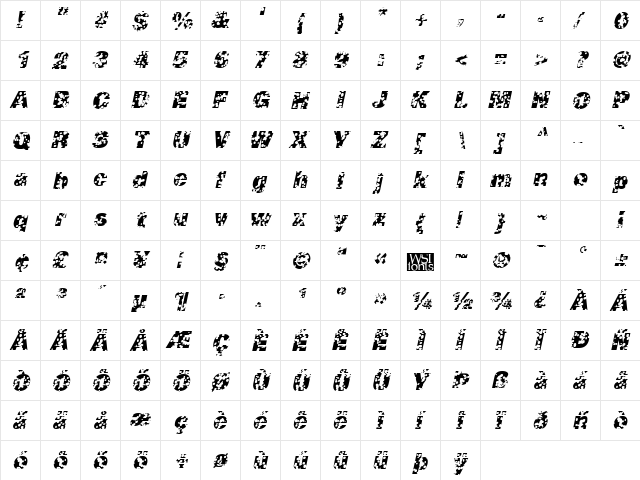
SwissCheese Italic Font Preview
SwissCheese Italic
SwissCheese Italic Font Details
Design Context for SwissCheese Typeface
SwissCheese is a composed and adaptable typeface that performs quietly and consistently across a wide range of design contexts. Its italic angle brings a sense of urgency and motion to the letterforms.